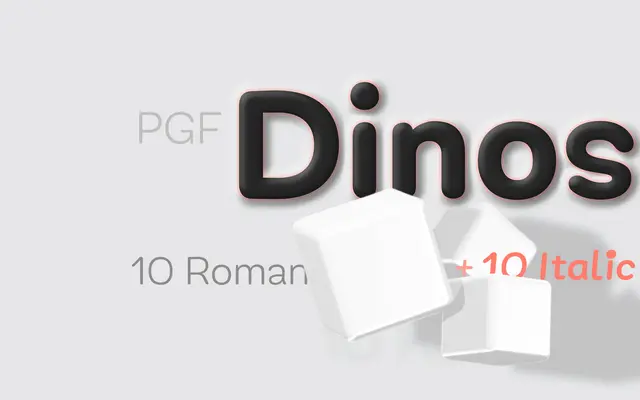
PGF-Dinos
Peggo Fonts · Pedro Gonzalez · 2014
A rounded, low-contrast display face drawn from Block Sign Paint lettering traditions, with inverted asymmetric proportions that give each line of text a lively, top-heavy rhythm.
Originally named Globa, PGF-Dinos was designed by Pedro Gonzalez and released between 2014 and 2015. Its defining characteristic is an asymmetric letter structure where the upper half of each character appears larger than the lower, with distinctive bending finials visible on letters such as C, G and S. The family spans ten weights from Hairline to ExtraBlack, each with a matching italic, and is positioned toward sport products, food packaging, video games and entertainment media.
A low-contrast rounded display face inspired by Block Sign Paint lettering, with a distinctly playful and decorative character that places it firmly in the display category rather than any functional text category.